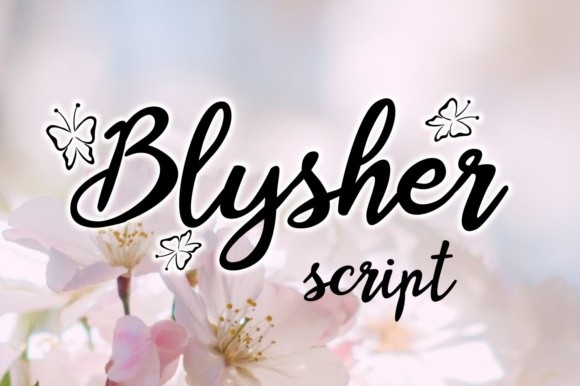
The Sweet Delight of Blysher Font: A Designer’s New Best Friend
I’ll never forget the moment I stumbled upon the Blysher font. I was working on a monogram project for a client, and I was determined to find the perfect handwritten font that would make their initials pop. As I scrolled through my font library, I came across Blysher, and it was love at first sight! The delicate butterflies decorating the capital letters were like nothing I’d ever seen before. It was as if the font was whispering, “Pick me, and I’ll make your design dreams come true!” ✨
So, what makes Blysher font so special? Here are a few things I absolutely adore:
- ✨ Unique and Whimsical Design: The butterfly decorations on the capital letters add a touch of elegance and playfulness to any design.
- ✅ Easy to Read: Despite its decorative nature, Blysher font is surprisingly easy to read, making it perfect for body text and headings.
- 💕 Monogram Magic: The font is specifically designed with monograms in mind, and it shows! The butterflies create a beautiful, cohesive look that’s hard to achieve with other fonts.
Now, I do have to mention a few quirks to keep in mind:
- 🤔 Glyph Limitations: While Blysher has a range of lovely glyphs, it’s not as extensive as some other fonts. This might limit its use in very long texts or projects requiring a high level of customization.
- ⚠️ Butterfly Overload: If you’re not careful, the extra butterflies that appear between letters (activated by typing ‘[‘ and ‘]’) can become overwhelming. Use them sparingly to avoid visual clutter!
The Story Behind Blysher: A Designer’s Inspiration
While the true story behind Blysher’s creation remains a mystery, it’s easy to imagine a designer sitting amidst a fluttering butterfly garden, seeking to capture their delicate beauty in a font. Perhaps the designer wanted to evoke a sense of whimsy and wonder in their designs, or maybe they simply loved butterflies (who wouldn’t?). Whatever the inspiration, Blysher font is a delightful result that’s sure to bring a smile to your face.
Q: How do I get the extra butterflies between letters?
A: Simply type ‘[‘ and ‘]’ around the letters where you want the extra butterflies to appear. For example: B]lyshe[r
Q: Is Blysher font suitable for long texts?
A: While Blysher font is beautiful and easy to read, its decorative nature might make it less suitable for very long texts. It’s perfect for headings, monograms, and short texts, though!